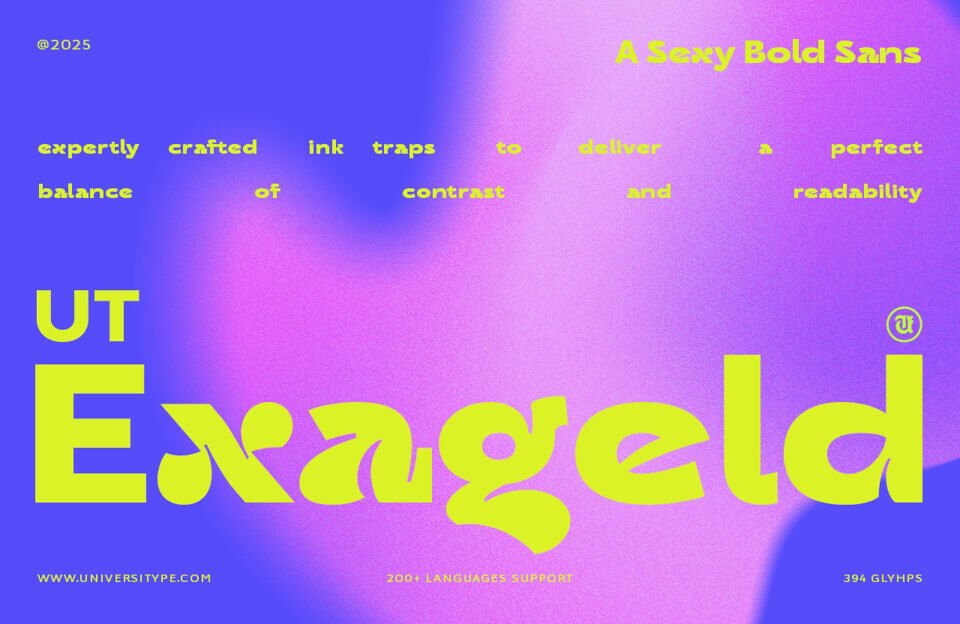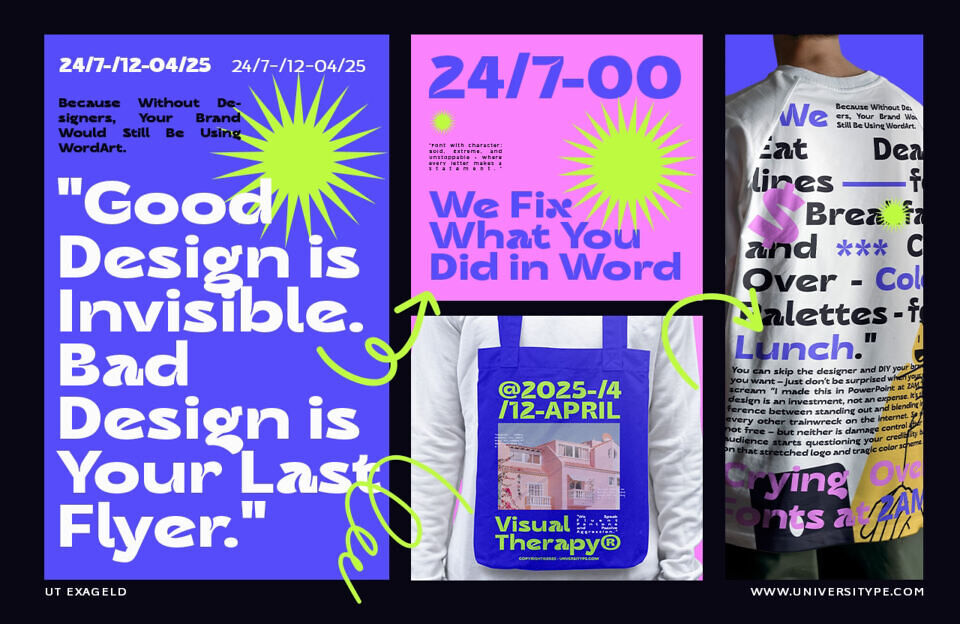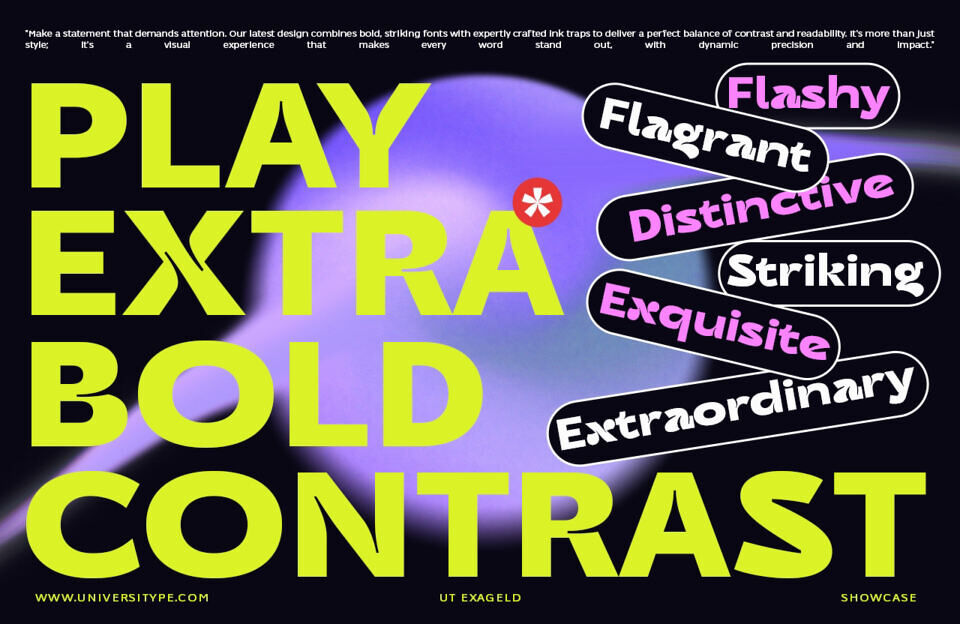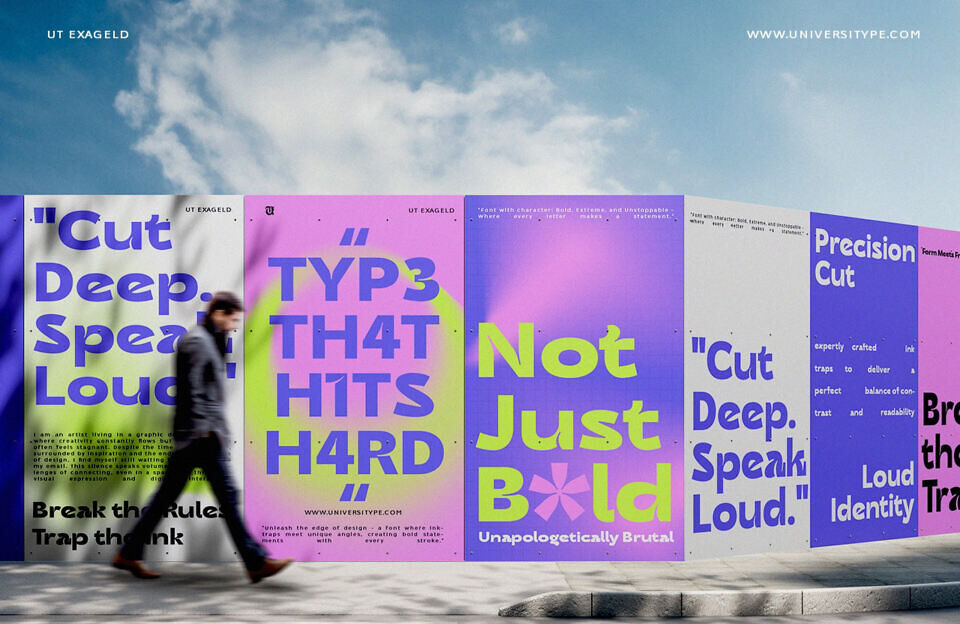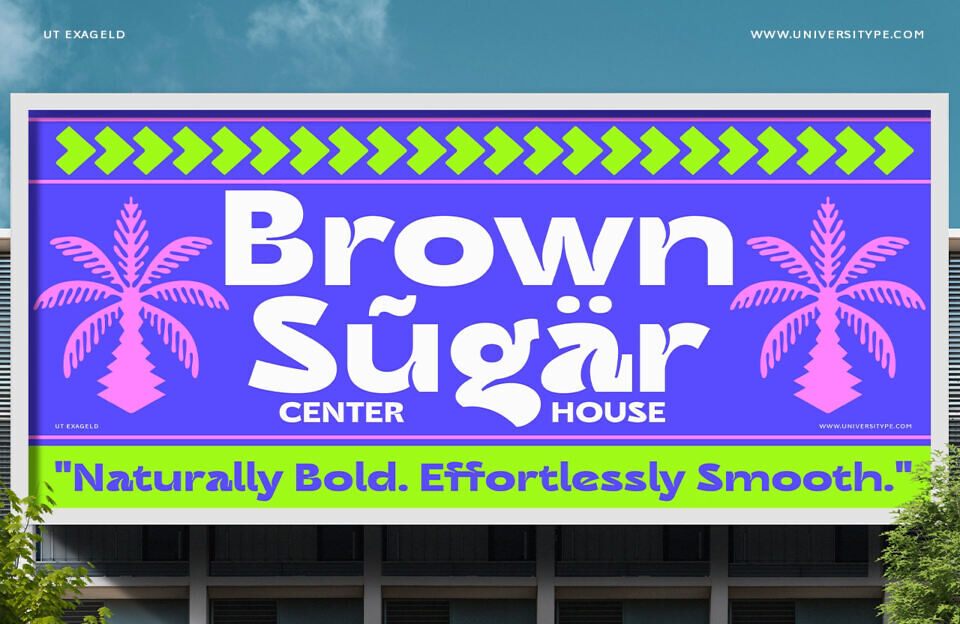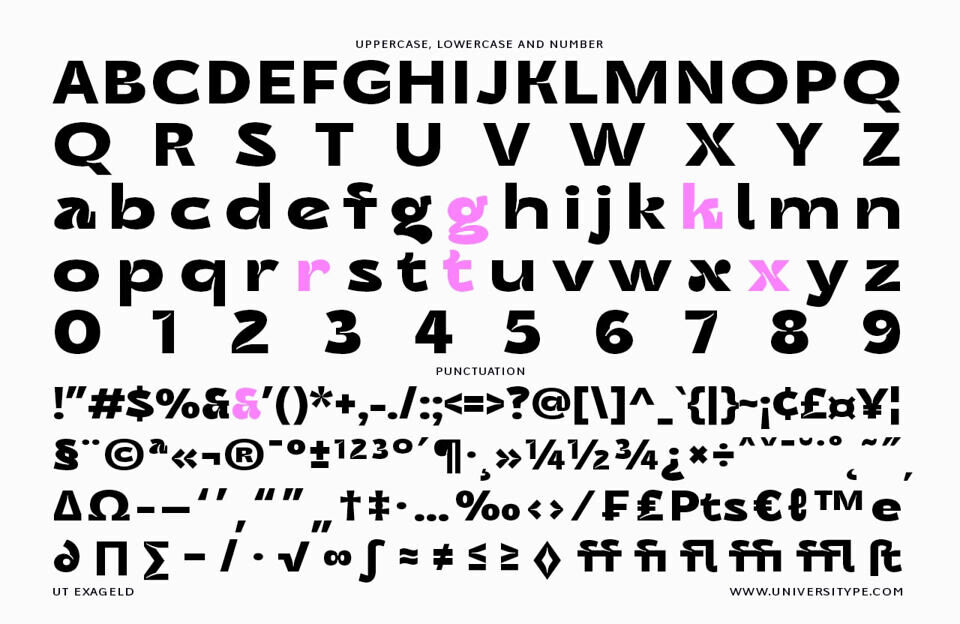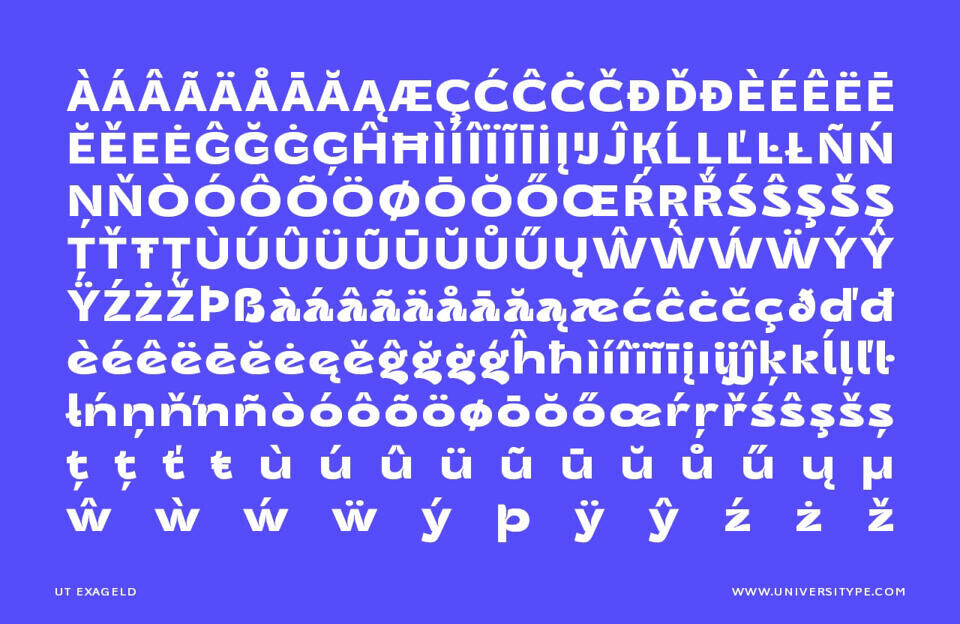
UT Exageld is a bold, sexy, and versatile sans-serif font that is perfect for designers looking to make a strong visual impact. With its expertly crafted ink traps, UT Exageld delivers a perfect balance of contrast and readability, making it suitable for a wide range of applications.